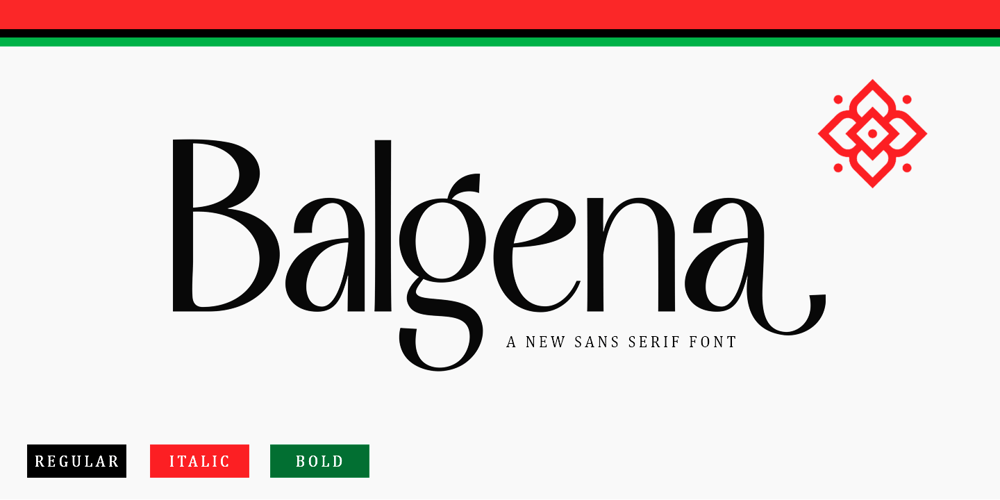
Balgena Font Family was designed by Wahi Din and published by Gold Type. Balgena contains 3 styles and family package options. Balgena is a versatile, high-contrast sans serif font family. Qualux comes from the words Quality and Luxury. This font has a distinctive serif style with a luxurious style in a light form, but also has a friendly and playful style in a bold font. Balgena has an extra glyph to give the crafter more options in designing. These extras will make a design look more classy, elegant, unique and edgy.Balgena is a font suitable for many projects, for modern or even retro vintage designs, branding, logos, crafts, stickers, sublimation, wedding invitations, and more. This font is suitable for a variety of projects such as logos, branding, magazines, signage, fashion, and many more.You will get : 3 type fonts-Regular-Bold-Italicmail features:Uppercase and lowercase lettersNumbers and punctuationMultilingual supportPUA encoded fontsAlternative styles and ligaturesThank You